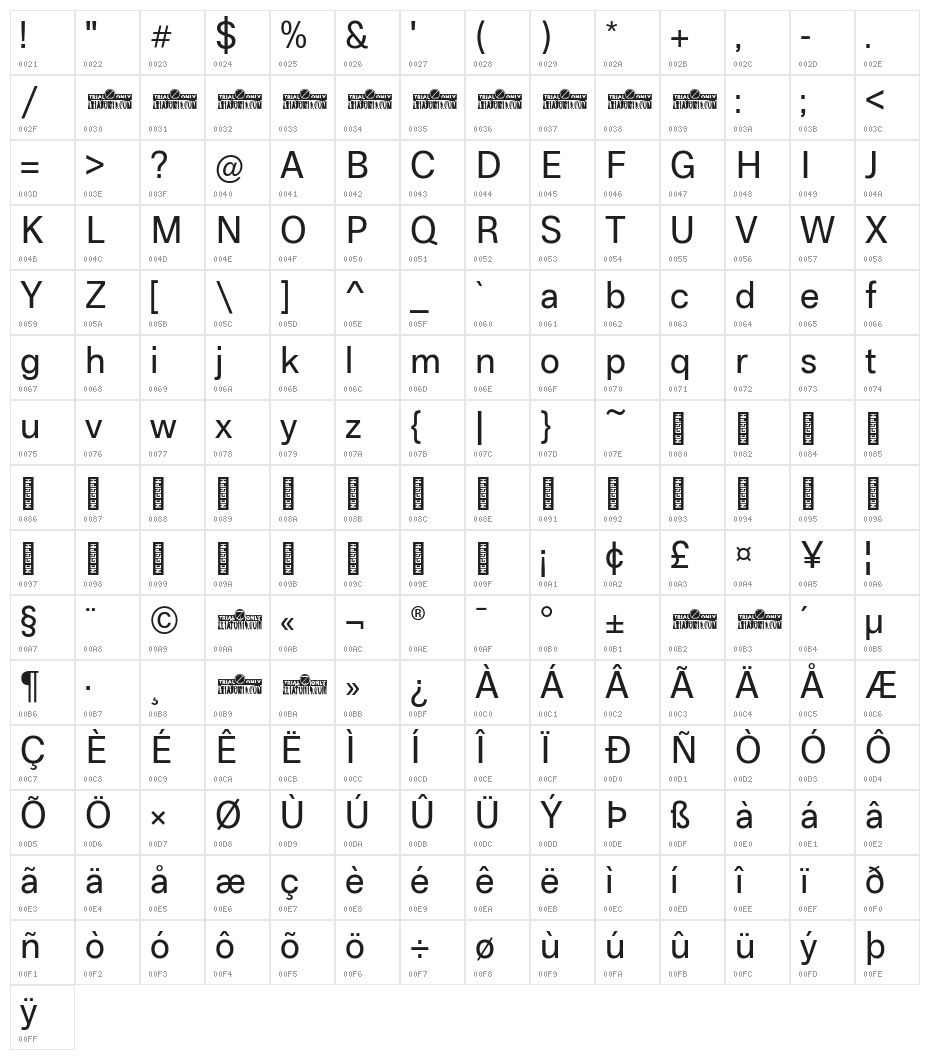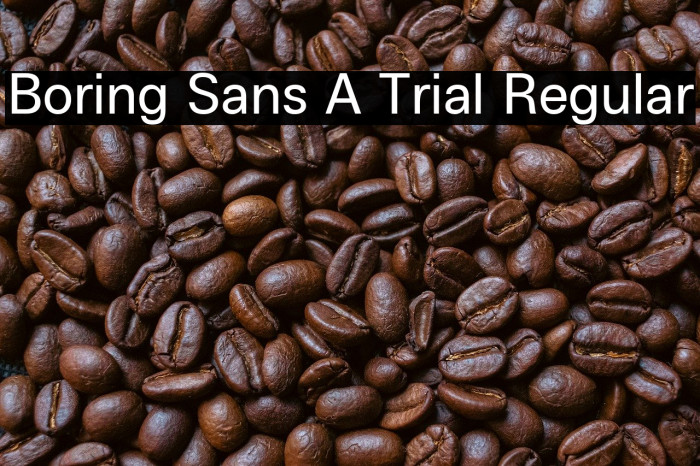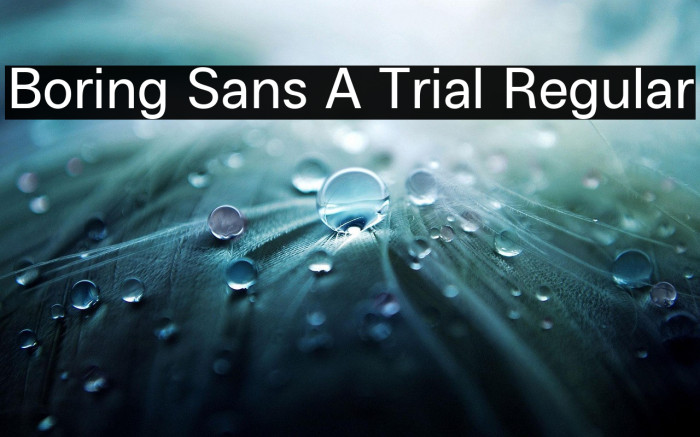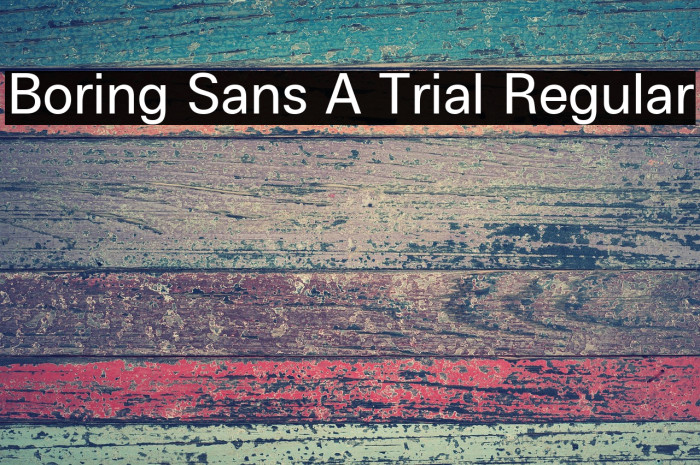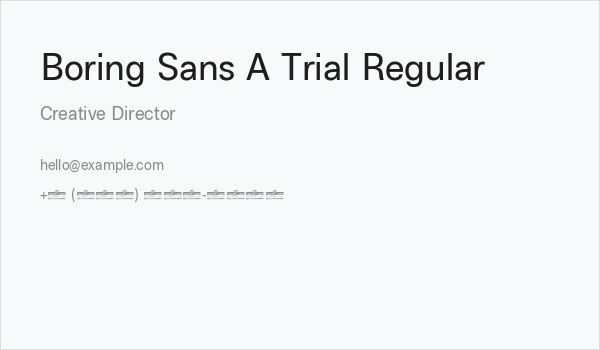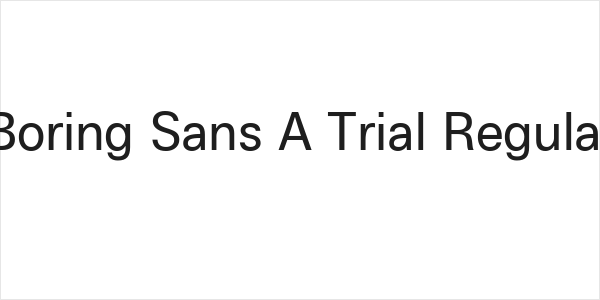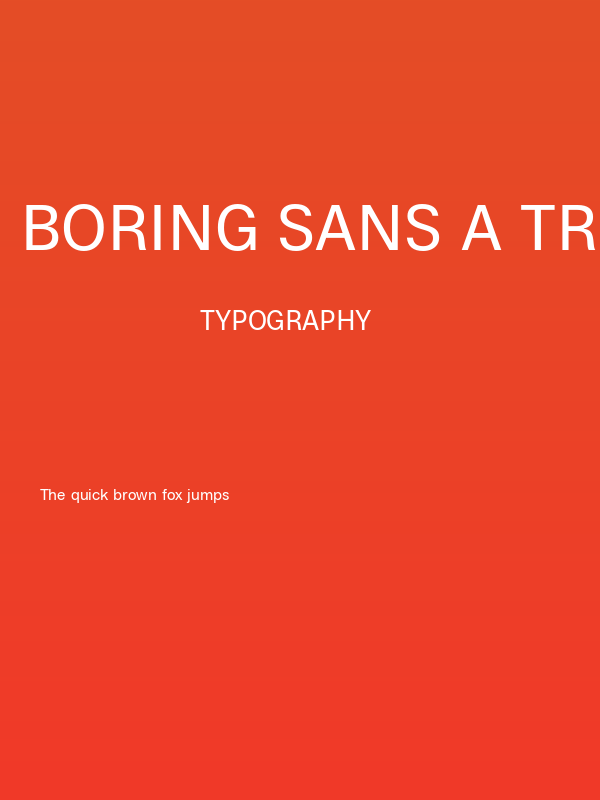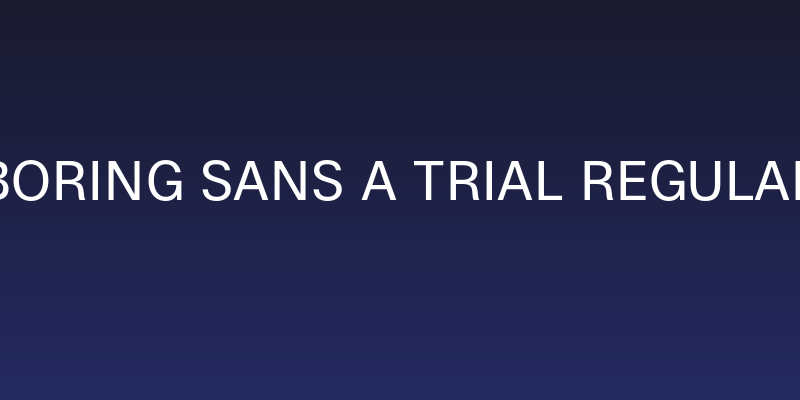
Boring Sans A Trial Regular Font
Boring Sans A Trial Regular Description
This typeface features a clean and straightforward design, characterized by its sans-serif structure. The letters are evenly spaced, with a consistent stroke width that gives it a balanced and modern appearance. The uppercase and lowercase letters are well-proportioned, making it highly legible. The numerals and special characters maintain the same clarity and simplicity, ensuring versatility across various applications. Its minimalist style makes it suitable for both digital and print media, providing a professional and uncluttered look.